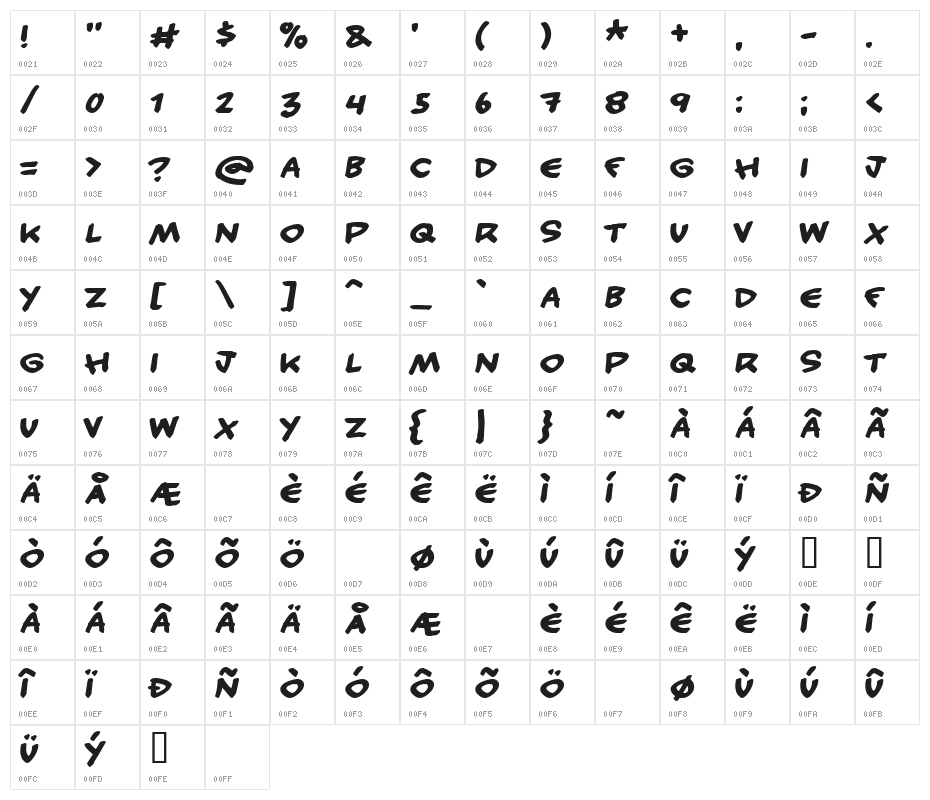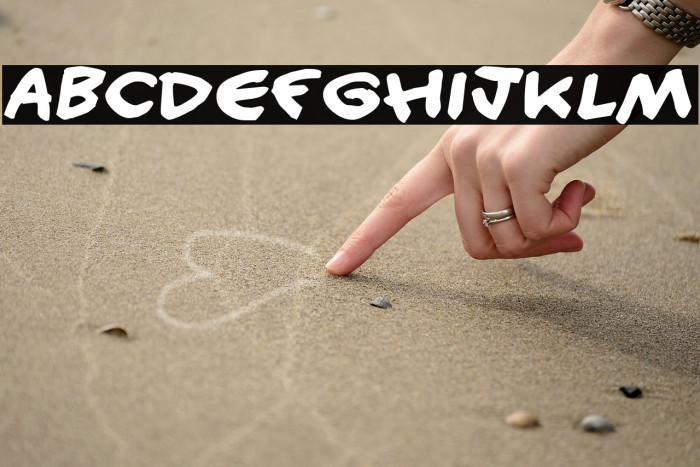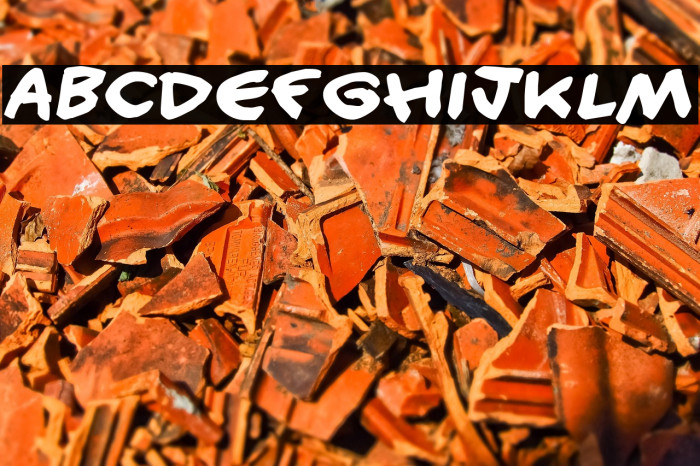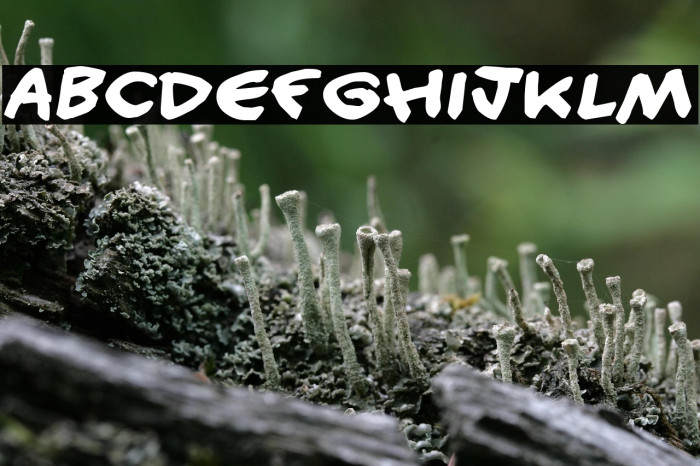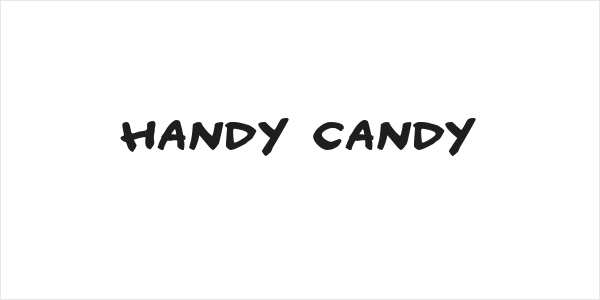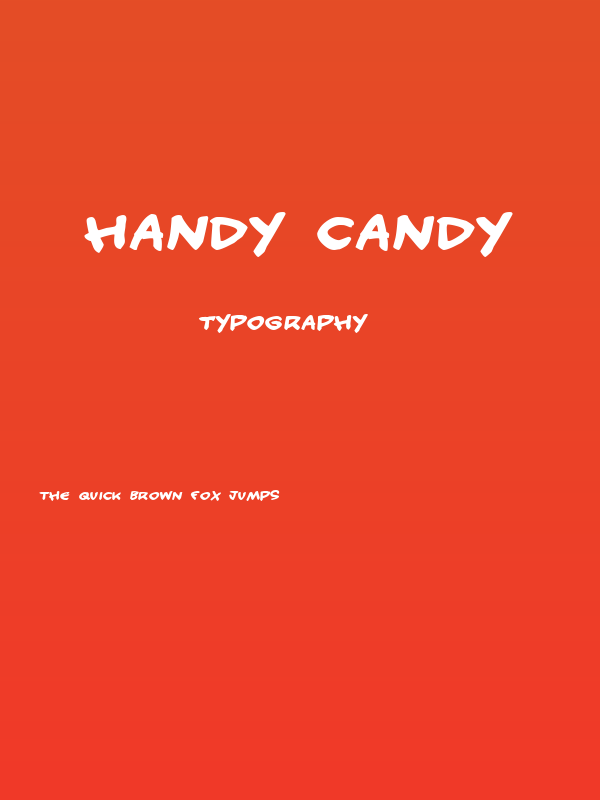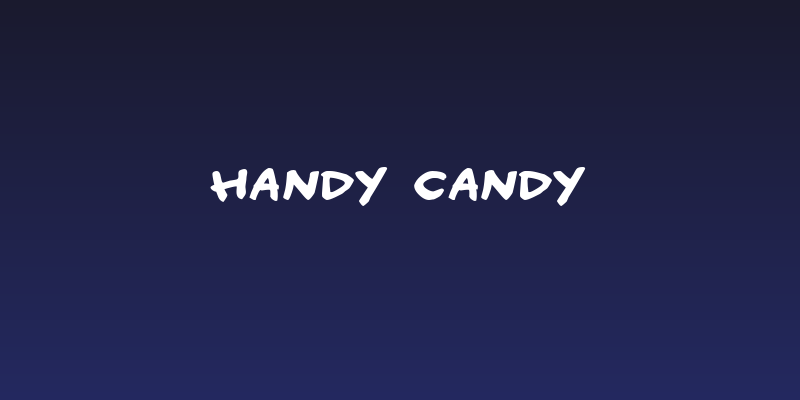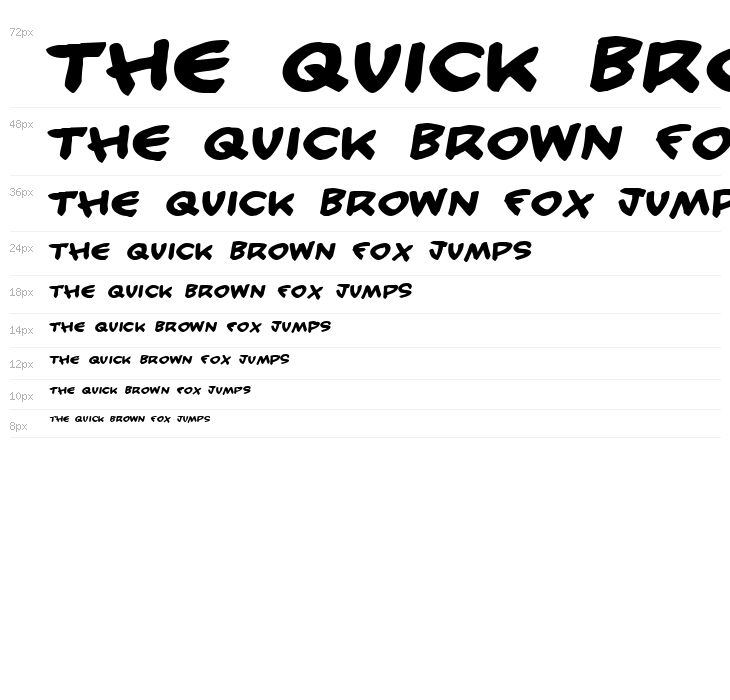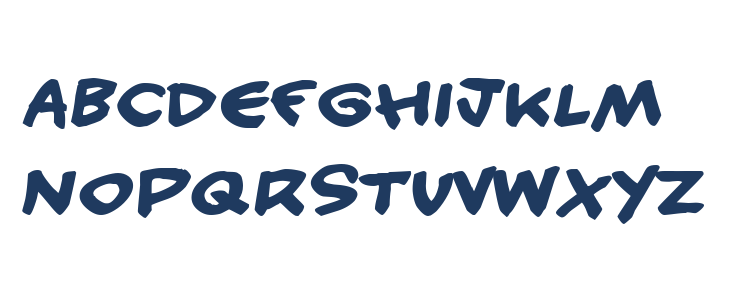
Handy candy Font
Handy candy Description
This playful and bold font features a handwritten style with a dynamic and energetic appearance. The characters are slightly slanted, giving a sense of movement and spontaneity. The strokes are thick and rounded, contributing to a friendly and approachable look. The uppercase and lowercase letters maintain a consistent style, with a slight variation in size and form that adds to the casual feel. Numbers and special characters are included, matching the overall aesthetic. This font is ideal for projects that require a fun and informal touch.
| Overall Style | Playful |
| Use Case | Logos, Headlines, Posters |
| Proposed Projects | Perfect for children's book covers, playful branding, greeting cards, and social media graphics. |